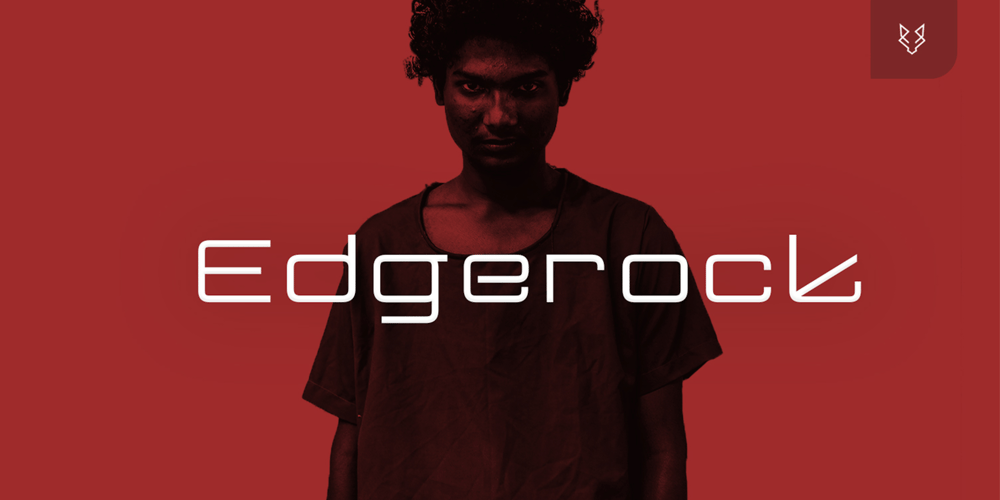
Edgerock Display Typeface Font Family was designed by Evin Tony and published by FoxType. Edgerock Display Typeface contains 5 styles and family package options. Introducing EdgeRock Display—a font family exuding elegance and versatility. With its nine meticulously crafted weights, ranging from Light to Bold ( 05 weights ), EdgeRock Display offers unparalleled flexibility for a wide range of design applications. Whether it’s branding, headlines, captions, or posters, this typeface makes a bold statement with its controlled letterforms and modern touches.Designed with meticulous attention to detail, EdgeRock boasts over 200 glyphs, including numerals and extended punctuation, ensuring seamless integration into any design project.